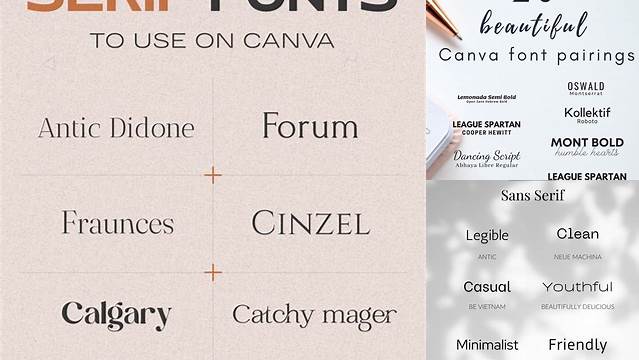
Canva & Adobe Fonts: A Match Made In Design Heaven
Hey everyone! Are you ready to level up your design game? Today, we're diving headfirst into a super cool combo: how to use Adobe Fonts on Canva. This is like unlocking a secret weapon for your creative projects, giving you access to a massive library of amazing fonts that can seriously make your designs pop. Whether you're a seasoned designer or just starting out, I promise, this is a game-changer. We'll break down everything, from the basics of what Adobe Fonts are to how to seamlessly integrate them into your Canva workflow. Get ready to say goodbye to generic fonts and hello to a world of typographic possibilities! Trust me, guys, understanding how to use Adobe Fonts on Canva is going to transform how you approach your designs. Let's jump right in!
H2: Understanding the Power of Adobe Fonts
Alright, let's start with the basics, shall we? What exactly are Adobe Fonts, and why should you care? Think of Adobe Fonts (formerly known as Typekit) as a massive online library of fonts, curated and owned by Adobe. It's a subscription-based service, but the good news is, if you're already a Creative Cloud subscriber, you likely have access to a vast selection of these fonts as part of your plan. They've got everything, from sleek, modern sans-serifs to elegant, classic serifs, and even some seriously funky display fonts. The cool thing is, they're all professionally designed, high-quality fonts. This means they'll look fantastic in your designs, no matter the size or context. When you use these fonts, your design will instantly look more professional and polished. Forget those default fonts everyone uses; with Adobe Fonts, you're getting fonts that are specifically designed to look great and improve your design. Furthermore, Adobe Fonts are designed to be versatile. They are designed to work well in various formats, from web design to print materials, so you won't need to worry about compatibility issues.
Why is this so important? Using high-quality fonts is one of the easiest ways to elevate your design. It can communicate your brand's personality, set the tone of your message, and make your designs more visually appealing and more readable. Think about it: a well-chosen font can grab attention, and communicate your message effectively. It can also make your content more engaging and enjoyable to read. Choosing the right fonts for your designs shows that you care about the details. It shows you are serious about your brand. So, understanding how to use Adobe Fonts on Canva is not just about adding a font; it's about telling your story in a more compelling and impactful way. This is essential for anyone looking to create professional-looking designs, whether for personal or business use. It's about creating work that stands out and reflects your brand's unique identity.
H3: The Benefits of Using Premium Fonts
Let's get a bit deeper into why using premium fonts, like those available through Adobe Fonts, is such a smart move. First and foremost, quality matters. The fonts you find in the Adobe library are created by professional typographers. They are designed to be visually appealing, highly readable, and optimized for different uses. This means they're not just pretty to look at; they actually work to enhance your design. Think about readability: it's incredibly important, right? Professional fonts are crafted to ensure that your text is easy on the eyes, regardless of the size or the background it's placed on. This ensures that your audience can easily consume the content you're presenting. Moreover, using premium fonts helps you stand out. In a world saturated with design, using the same old generic fonts simply won't cut it. Using unique and well-designed fonts from Adobe Fonts allows your designs to stand out from the crowd, making your brand more memorable and increasing the chances of people engaging with your content.
Another huge benefit is brand consistency. Once you find fonts you love, you can use them across all your designs, from your website to your social media posts to your printed materials. This helps create a cohesive brand identity. When your audience sees the same fonts used consistently, they’ll start to recognize your brand, building trust and recognition over time. This consistency is important for solidifying your brand's image. Besides all the visual advantages, using premium fonts also opens up licensing possibilities. Adobe Fonts handles all the licensing for you, which removes the burden of ensuring you comply with complex usage restrictions. You don't have to worry about legal issues; you're free to use the fonts as needed in your design. Therefore, as you can see, embracing the knowledge of how to use Adobe Fonts on Canva is an investment in your design capabilities and in the overall success of your creative projects.